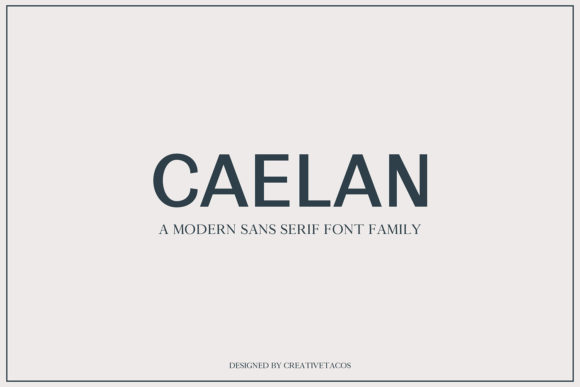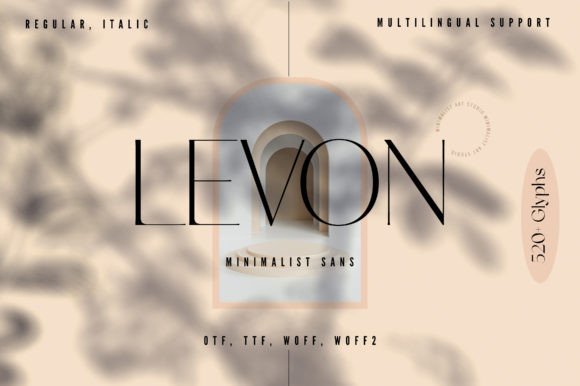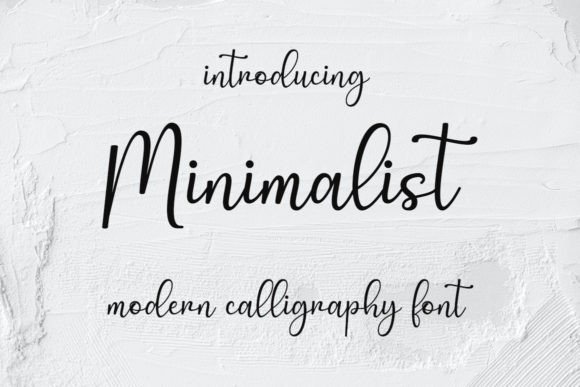
16 Creative Minimalist Fonts for Creative Projects in 2026
16 Minimalist Fonts for Creative Projects (2026)
Discover 16 creative minimalist fonts perfect for all types of projects in 2026—from logos and packaging to Etsy and Amazon listings. Explore modern, sleek, and easy-to-read font recommendations with direct links to high-quality Creative Fabrica options for instant download and use.
If you’re a graphic designer, entrepreneur, or brand specialist wanting to refresh your projects with on-trend type, curated minimalist fonts are essential. Minimalist fonts offer clarity, elegance, and adaptability—they’re perfect for branding, product packaging, Amazon and Etsy listings, and web design. In this AI-driven roundup, we reveal the top 16 creative minimalist fonts for 2026, reflecting global design preferences and Creative Fabrica’s most popular picks. Need more ideas? Check out 7 Creative Elegant Serif Fonts for Canva Designs for additional modern font inspiration.
Minimalist Font by cavalera creative
If you want a truly clean and modern sans-serif, Minimalist Font by cavalera creative should be top of your list. Its geometric lines and proportional spacing make it especially effective for logos, social banners, and print design in 2026. The font’s uncluttered design stands out without shouting, helping your message stay clear. It’s versatile for minimal branding on both physical and digital projects.
Minimalist Font by ONE DESIGN
This font by ONE DESIGN features a tall serif style with crisp lines and excellent readability. Its upright proportions and elegant serifs add a touch of sophistication to headers, posters, and editorial layouts. The neat, simple style adapts easily to modern branding, making your content appear timeless and refined. Designers who love minimalist fonts 2026 trends will find it an ideal go-to font for upscale projects.
Minimalist Font by Black line
Minimalist Font by Black line provides a geometric sans-serif look that’s crisp and futuristic. The even spacing and clear glyphs make it particularly strong for branding, signage, and web interfaces where legibility and style matter equally. Its character makes a quiet impact, perfect for contemporary businesses wanting an understated yet memorable look. Use it to give your brand a polished, international feel.
Minimalist Font by LidvanType
LidvanType’s Minimalist Font expertly balances modernity and versatility. Its minimalist sans-serif form is ideal for clean websites, marketing materials, and tech-inspired projects. The font’s structure ensures crisp letterforms at any size, keeping your brands and messages visually appealing yet easy to read. For designers aiming at the creative minimalist fonts aesthetic, this is a practical and stylish solution.
Minimalist Font by Goodrichees
With a romantic and sweet calligraphy influence, this Minimalist Font by Goodrichees adds a gentle, premium touch to upscale branding and event invitations. The script-like forms dance along the baseline, introducing warmth while maintaining a clean look. It elevates logos and packaging, especially in industries like beauty or boutique retail. This font delivers minimalist flair with a luxurious twist.
Quirky Fabrica Font by Minimalist Eyes
If your project requires a minimalist font with a playful edge, Quirky Fabrica Font stands out. It merges minimalist structure with unique, creative glyphs, adding personality to branding or social graphics without overwhelming. This font can help product names or taglines pop—especially on digital listings and creative campaigns. A strong pick for anyone looking to blend minimalism with approachability in 2026.
Minimalist Sans Font by Infinity art Studio
Minimalist Sans is an elegant, ultra-thin display font designed for product packaging, t-shirts, quotes, and branding. Its straightforward lines and subtle presence help your visuals stay classy and legible. This typeface shines on marketing collateral, posters, and minimalist web themes, fitting perfectly with the clean design aesthetics popular in 2026. Use it to convey lightness and sophistication.
Minimalist fonts continue to shape creative and commercial projects worldwide. With these 16 handpicked options from Creative Fabrica, you’re ready to meet 2026’s trends and make your branding, marketing, and listings stand out with style and clarity. Try different combinations and let simplicity elevate your next design!